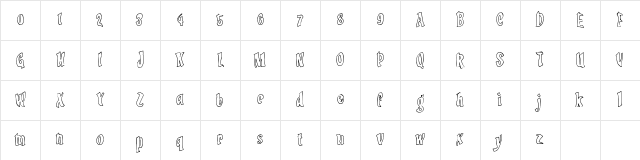
LuckyTricks Regular
Foundry: Xerographer Fonts
Designer: Max Infeld
Complete LuckyTricks Regular glyph index. Displaying only characters natively supported by LuckyTricks Regular font.
Design Context for LuckyTricks
LuckyTricks is a composed and adaptable typeface that performs quietly and consistently across a wide range of design contexts.